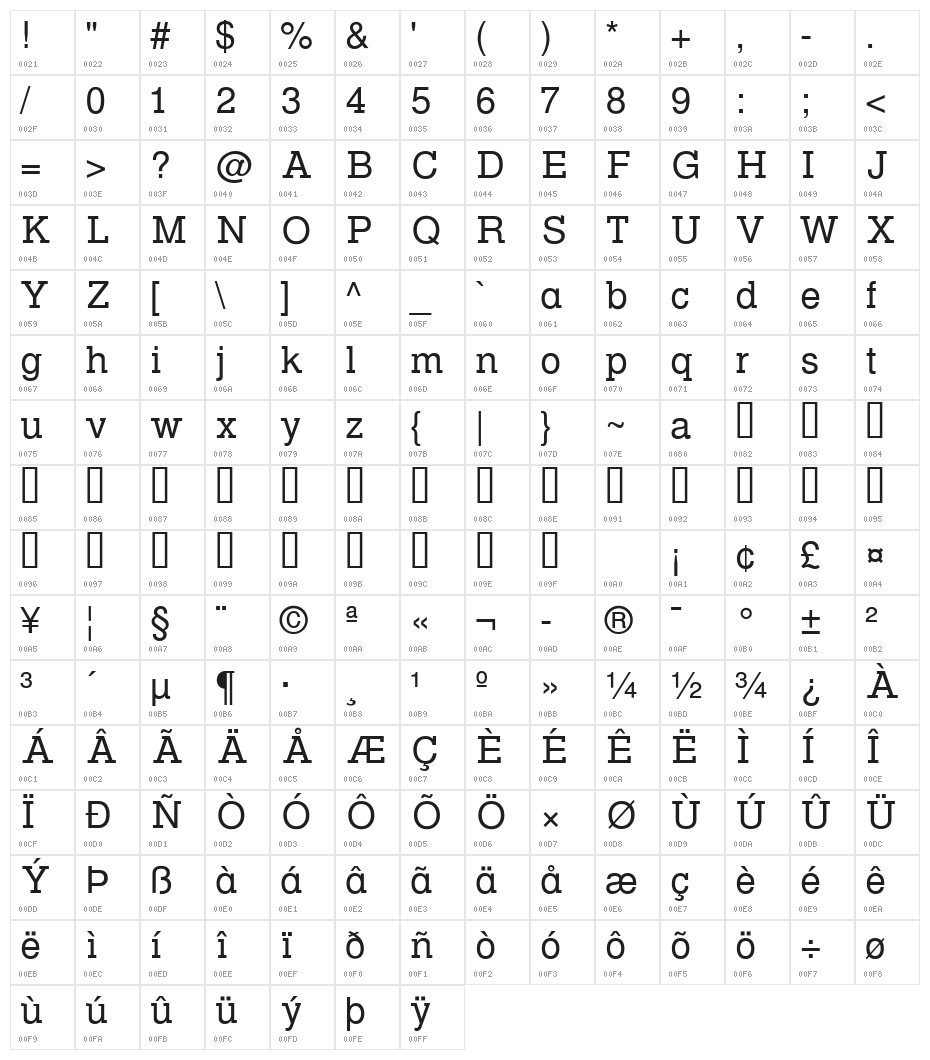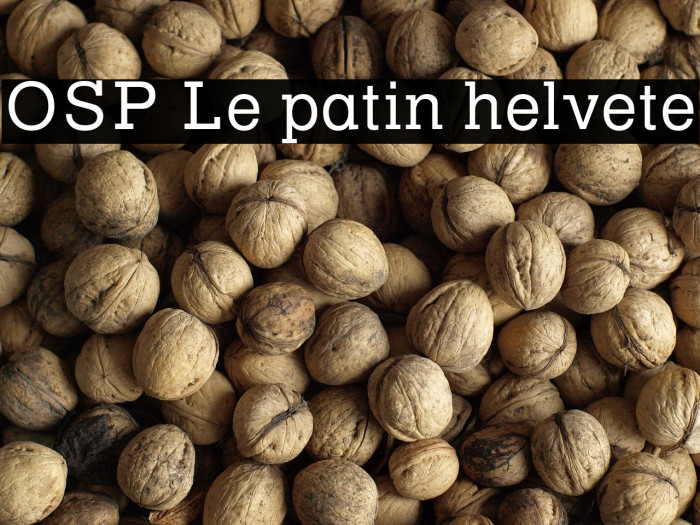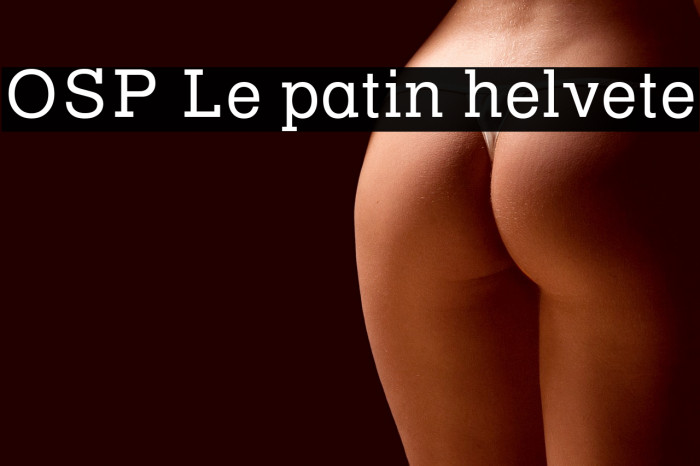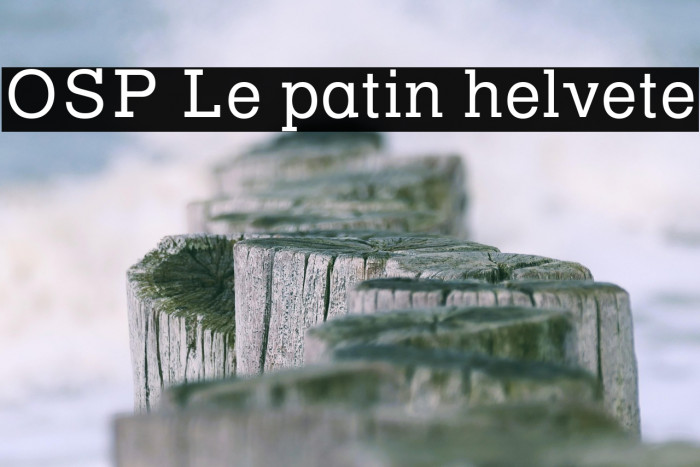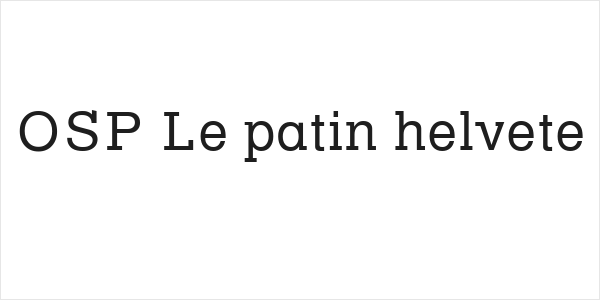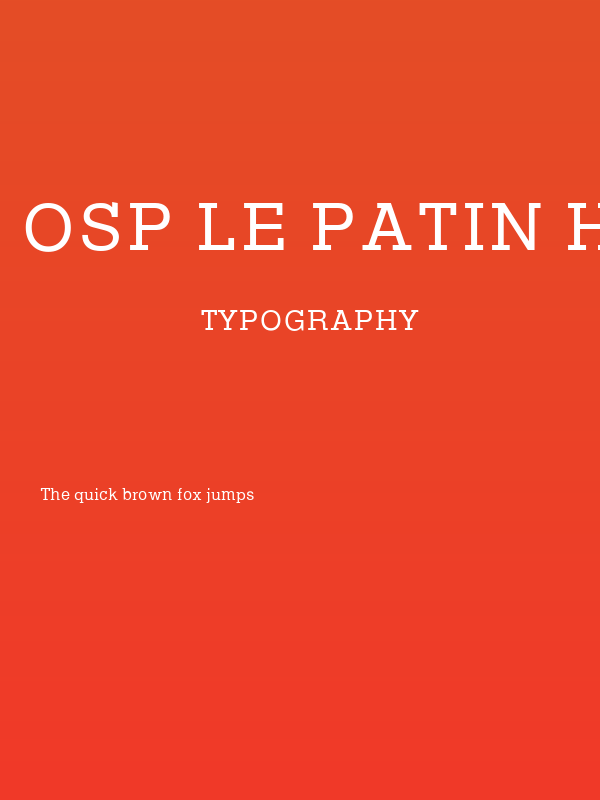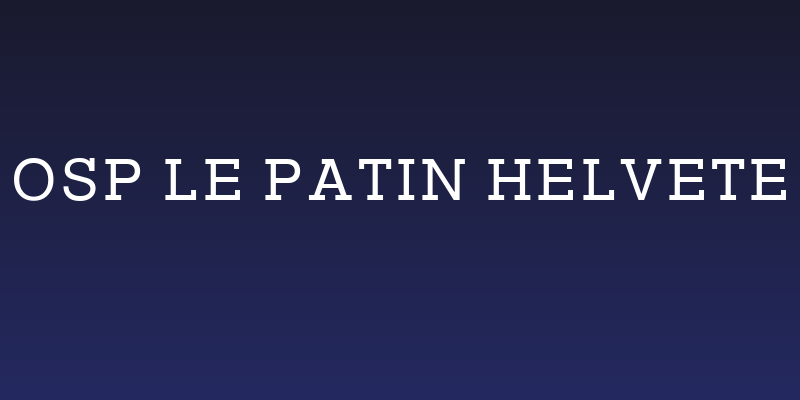
OSP Le patin helvete Font
OSP Le patin helvete Description
This font exhibits a classic serif style with a modern twist, characterized by its clean lines and balanced proportions. The uppercase letters are bold and commanding, while the lowercase letters maintain a consistent and harmonious flow. The numerals are clear and easily distinguishable, making them suitable for various applications. The special characters are well-integrated, providing a comprehensive set for diverse typographic needs. The overall design is versatile, making it suitable for both digital and print media. Its readability and elegance make it a great choice for professional and creative projects alike.